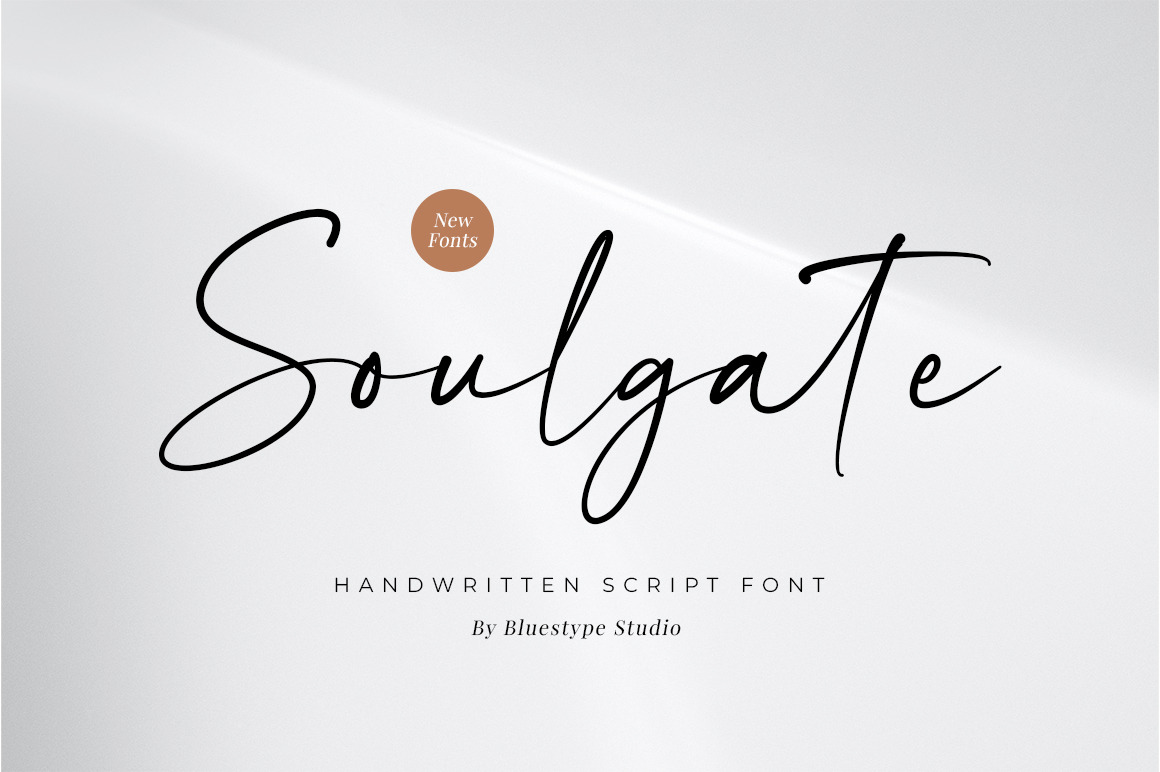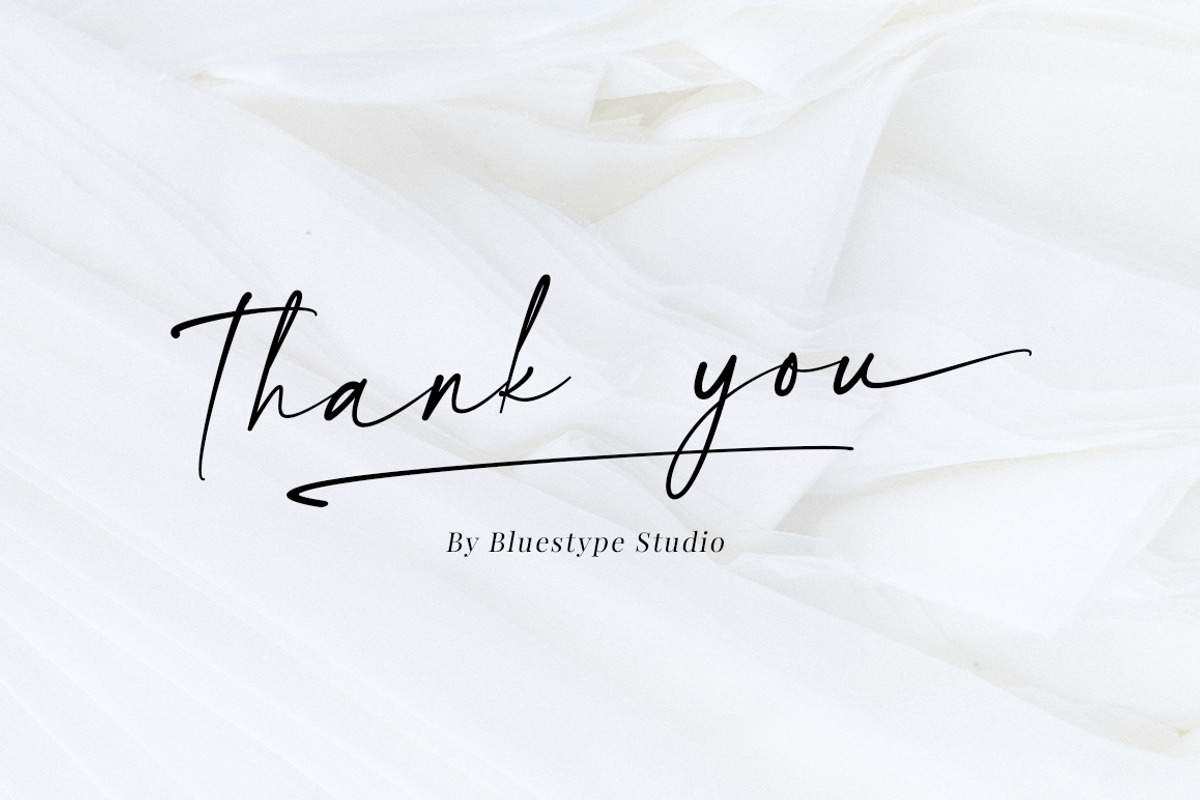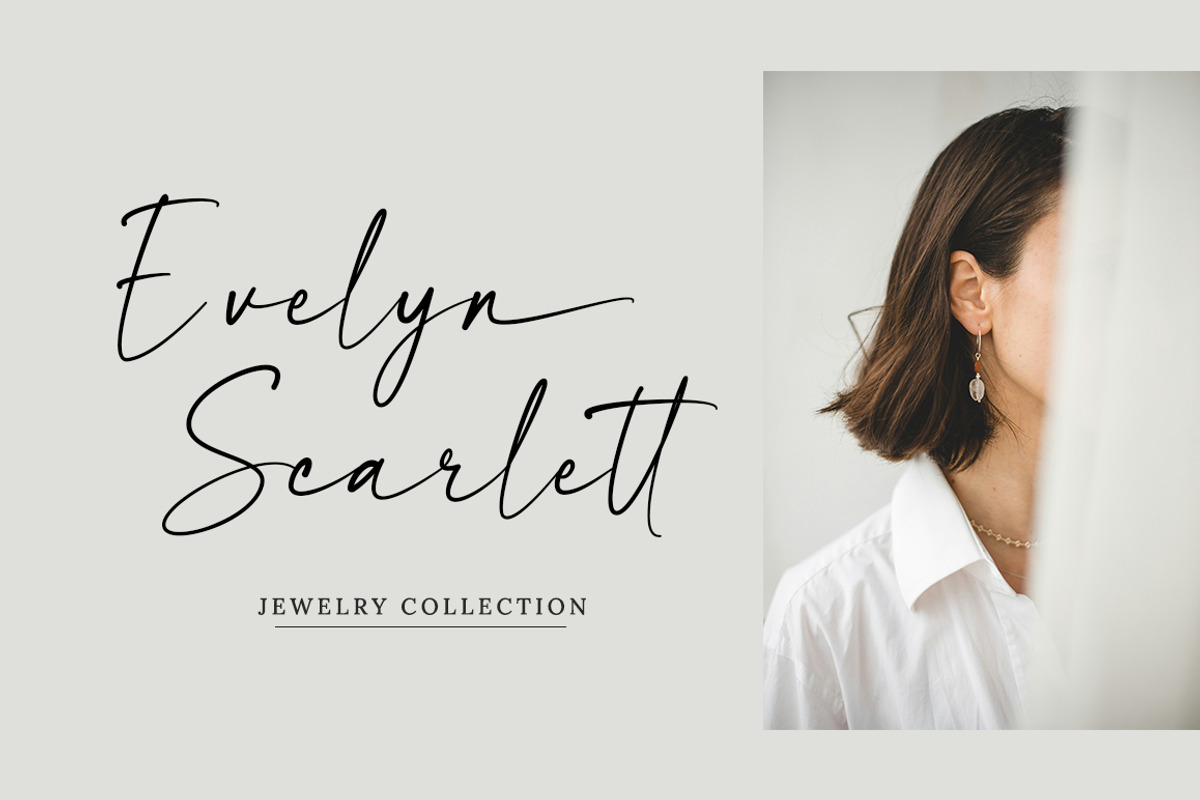
Soulgate - Handwritten Script Font
Hello ! This is our newest product font called Soulgate.
Soulgate is a handwritten font that is naturally created and looks charming. The font you need is here for your design!
This font is suitable for use on branding, social media, business cards, weddings, t-shirt designs, logotype, magazines, quotes, fashion, watermarks, invitations, signatures.
- Stylistic Set
- Number & Punctuation
- Support Multilingual Languange